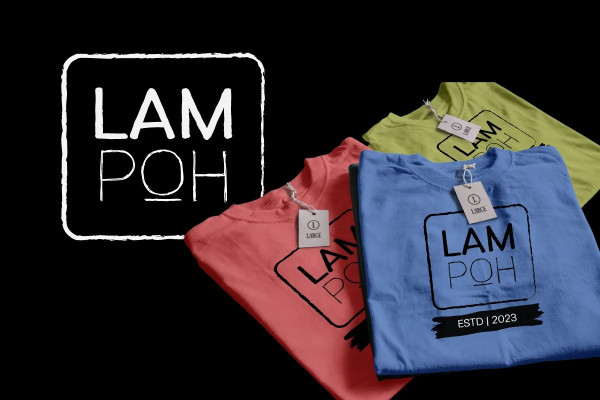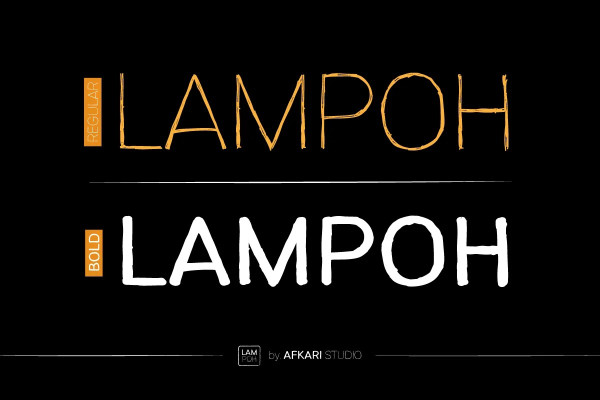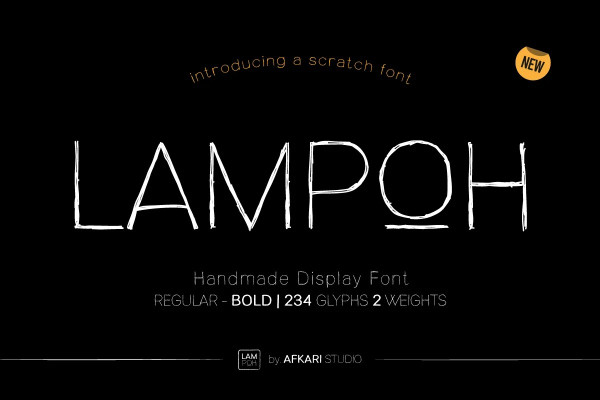
Lampoh Scratch Font
Lampoh Scratch Font, is an artistic and captivating handmade display font, meticulously crafted by a talented type designer to bring uniqueness and authenticity to your creative projects. With its scratch-inspired design, LAMPOH Scratch stands out as a one-of-a-kind font that exudes a raw and artisanal charm, making it perfect for various artistic endeavors.
Every character in LAMPOH Scratch has been meticulously hand-drawn with love and passion, ensuring that each glyph carries a distinct and organic feel. The imperfections and irregularities of the scratch strokes add an element of human touch, providing a genuine and authentic character to the font.
LAMPOH comes in both regular and bold styles, giving you the flexibility to choose the perfect weight for your design needs. The regular style boasts elegance and subtlety, while the bold style makes a powerful statement, ideal for headlines and emphasis.
LAMPOH’s versatile design makes it an ideal choice for a wide range of projects. Whether you’re creating eye-catching headlines, attention-grabbing posters, logo designs, merchandise branding, or anything that requires a touch of artistic flair, LAMPOH will effortlessly enhance the visual appeal of your work.
The uppercase characters of LAMPOH Scratch are bold and expressive, demanding attention with their captivating presence. On the other hand, the lowercase letters bring a touch of playfulness, offering quirky alternatives to add delightful variations to your text.
LAMPOH comes complete with a set of thoughtfully crafted standard characters and ligatures, allowing you to elevate your designs even further. These unique elements enhance the font’s versatility, making it easy to create visually engaging and harmonious compositions.
LAMPOH’s high-quality design ensures that it looks equally stunning in both print and digital formats. Whether you’re producing posters, brochures, social media graphics, websites, or any other project, this font will consistently deliver outstanding results.
It is not just a font; it’s a work of art that adds a touch of human craftsmanship to your creative projects. With its handmade scratch-inspired design, versatile usage, and expressive characters, LAMPOH brings a unique and authentic flair to any design. Unlock your creativity and let LAMPOH illuminate your artistic vision with its captivating charm. Choose between regular and bold styles to create striking and memorable designs that leave a lasting impression on your audience.